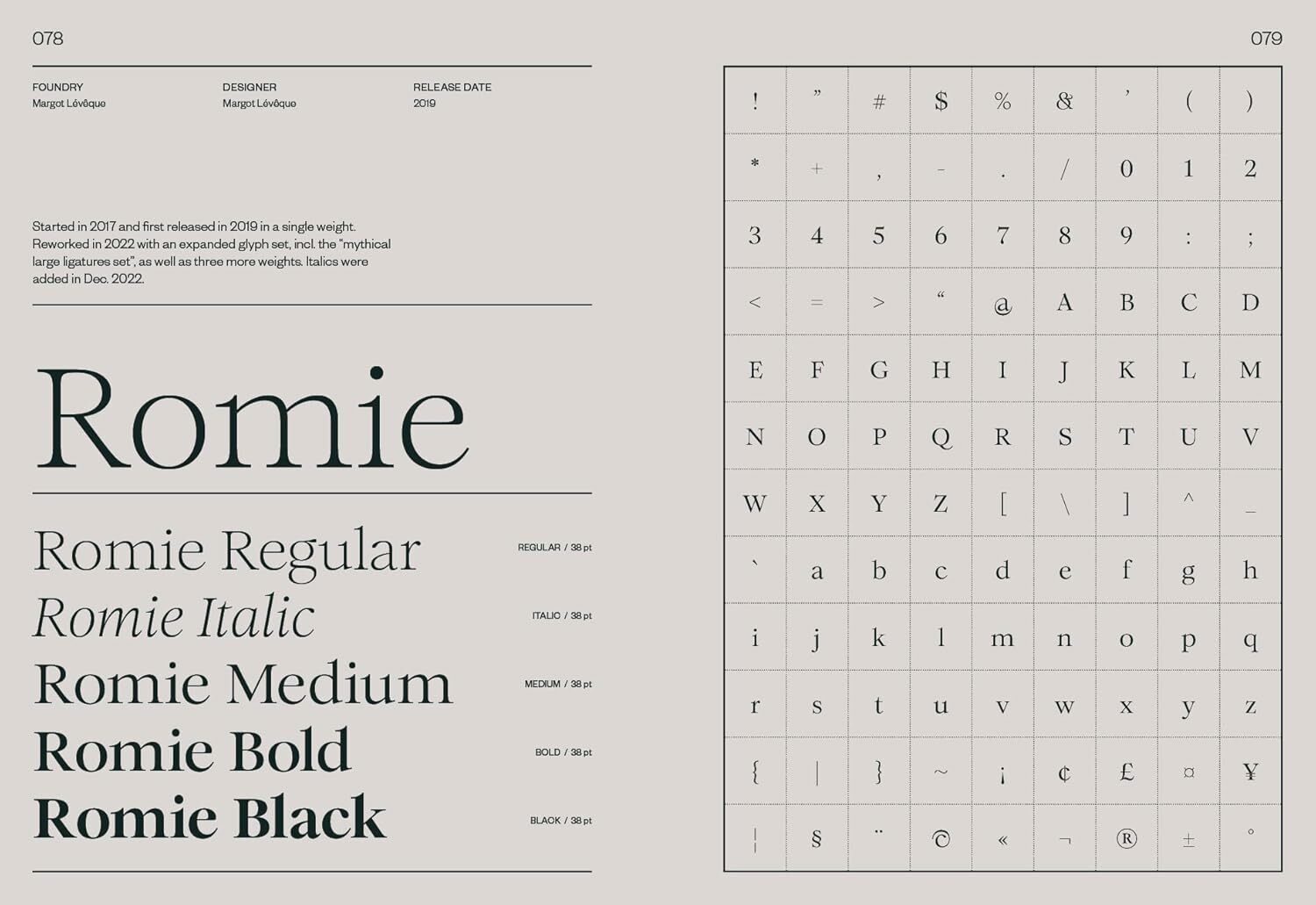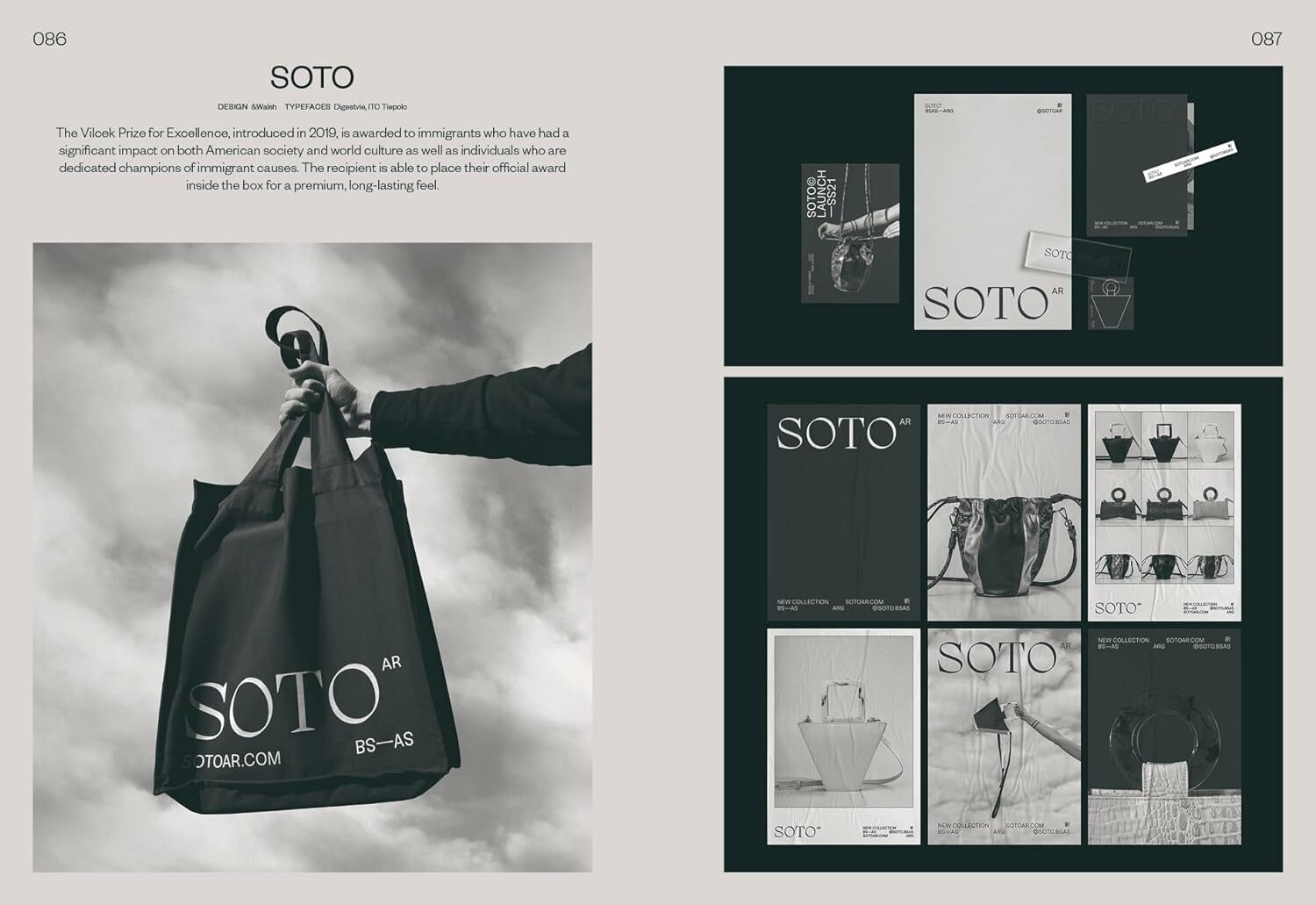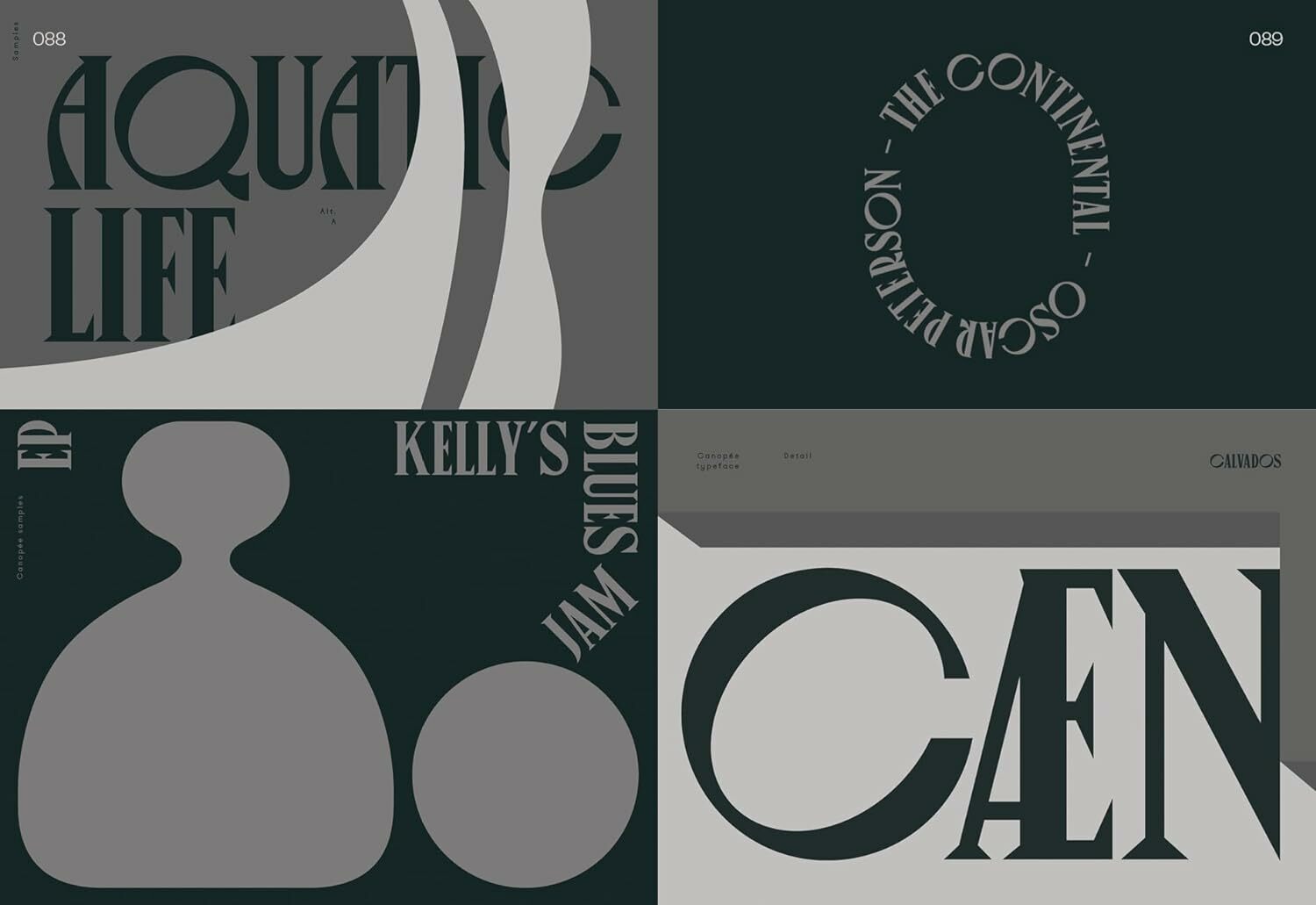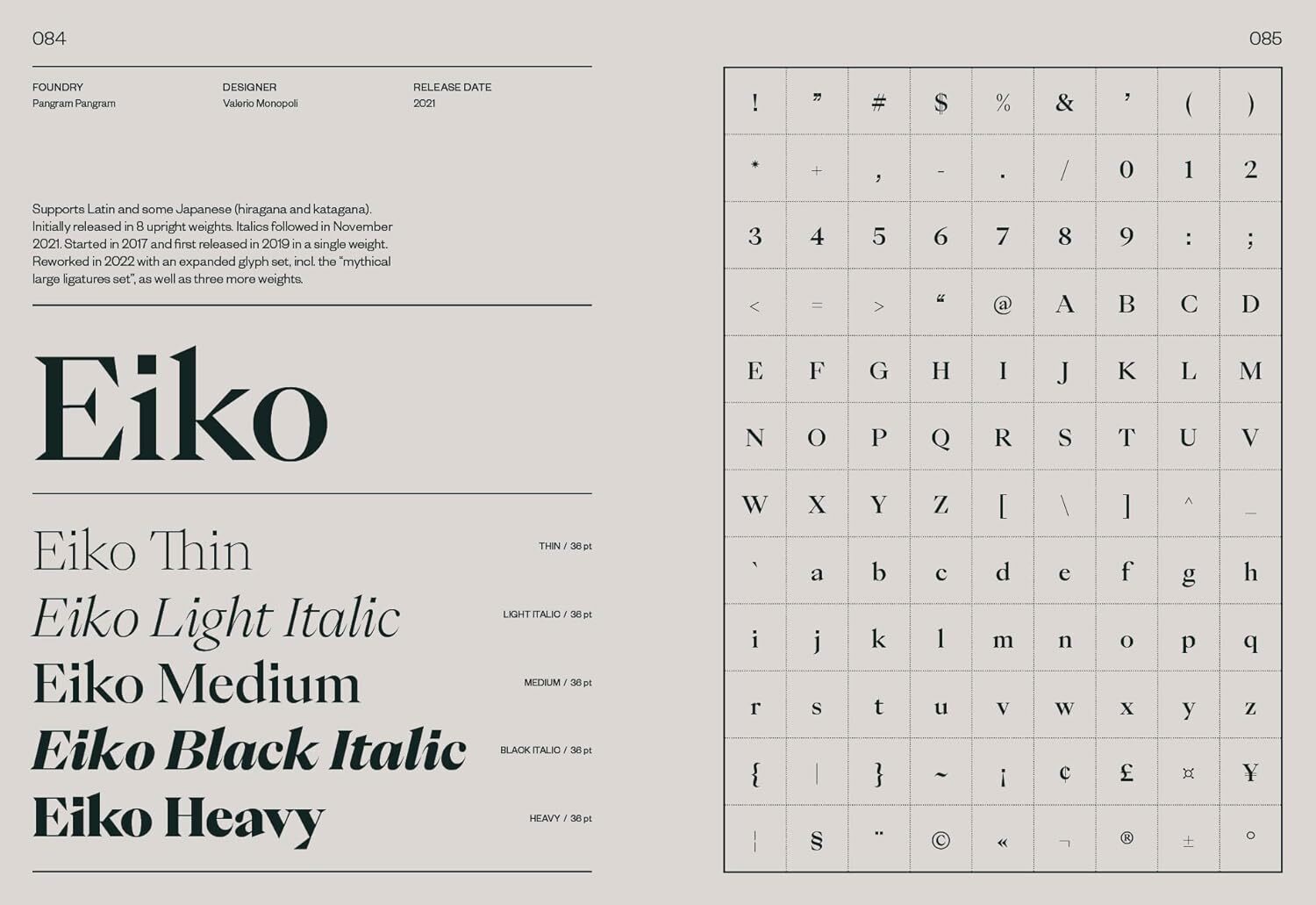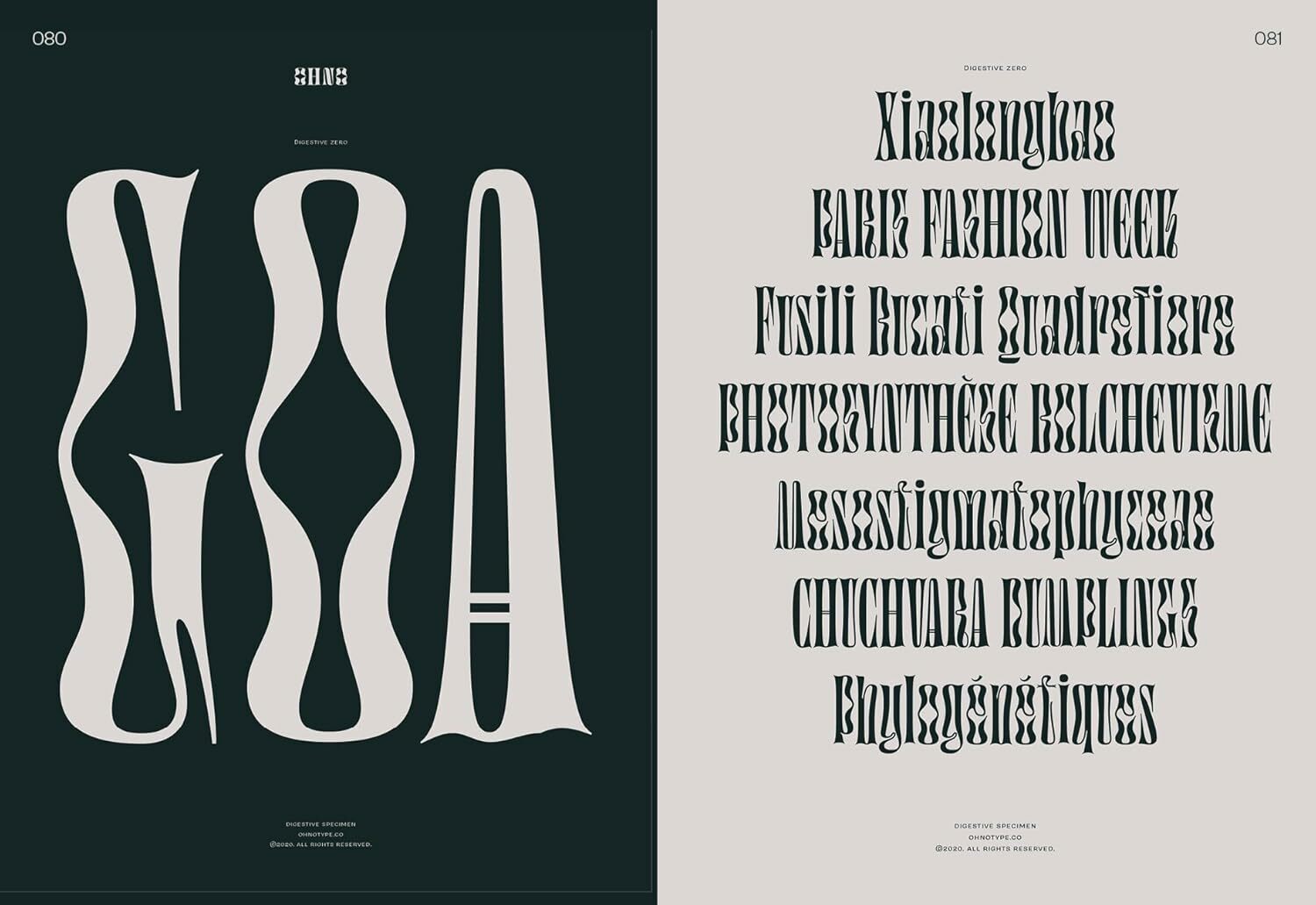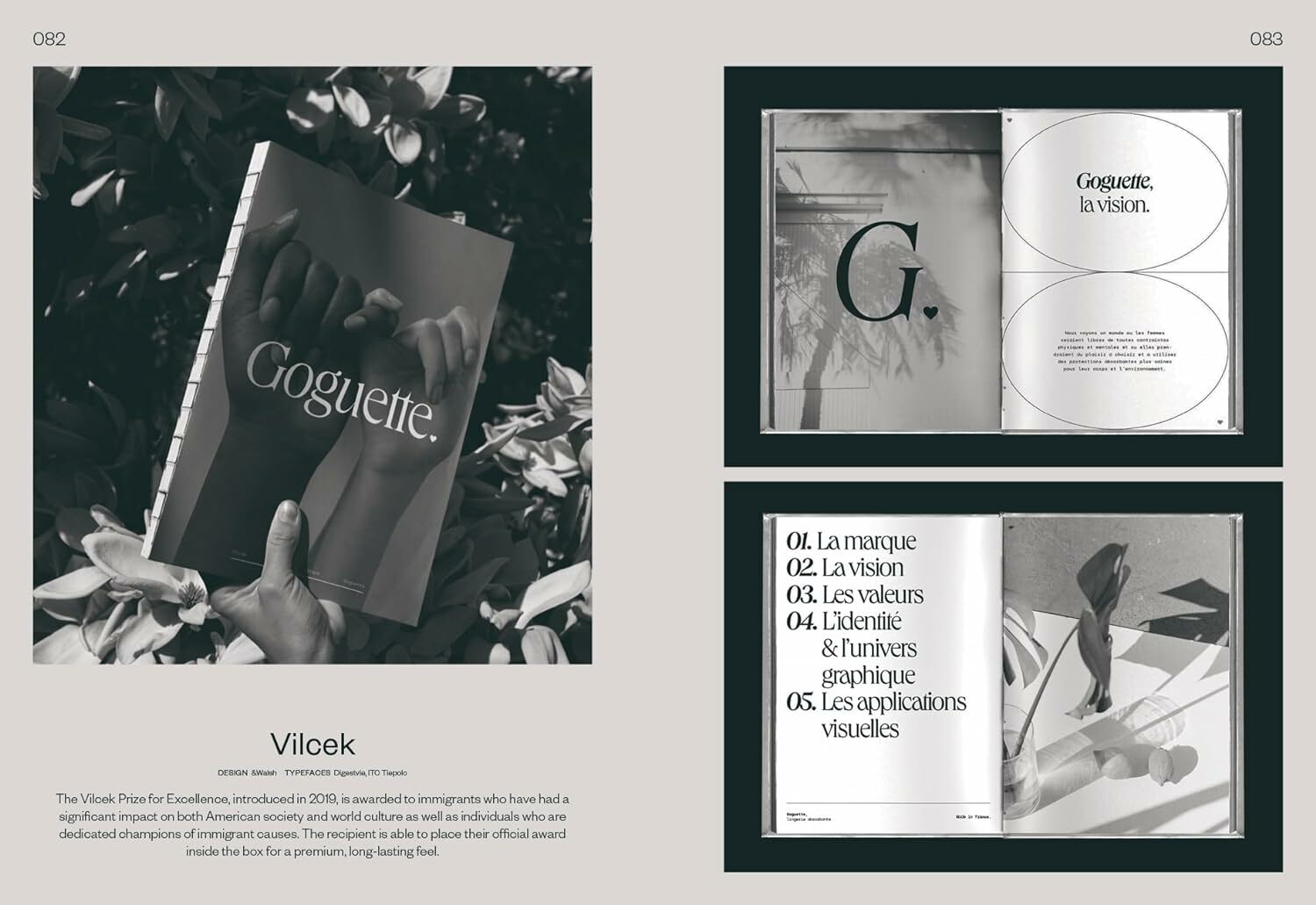
Serif typefaces, also known as serif fonts, are characterized by decorative lines or strokes that extend from the ends of the letters. These extensions are called "serifs" or "feet." The features and uses of serif typefaces include decorative strokes at the ends of letters that help connect letters and guide the reader's eyes. They typically give a classic, formal, and traditional feel. In printed materials, especially large blocks of text, serif typefaces are considered easier to read because the serifs help the eyes flow naturally. Due to their high readability, serif typefaces are commonly used in printed materials such as books, newspapers, and magazines.
From font weights to classifications, each typeface has its unique personality and should be carefully paired to convey the right tone and mood of the design. Serif in Use: A Collection of Serif Typefaces features a selection of type specimens, their design applications, and the thoughts behind the craft, collating the best combinations of serif typefaces and providing a reference for inspiration-seeking designers and typographers.